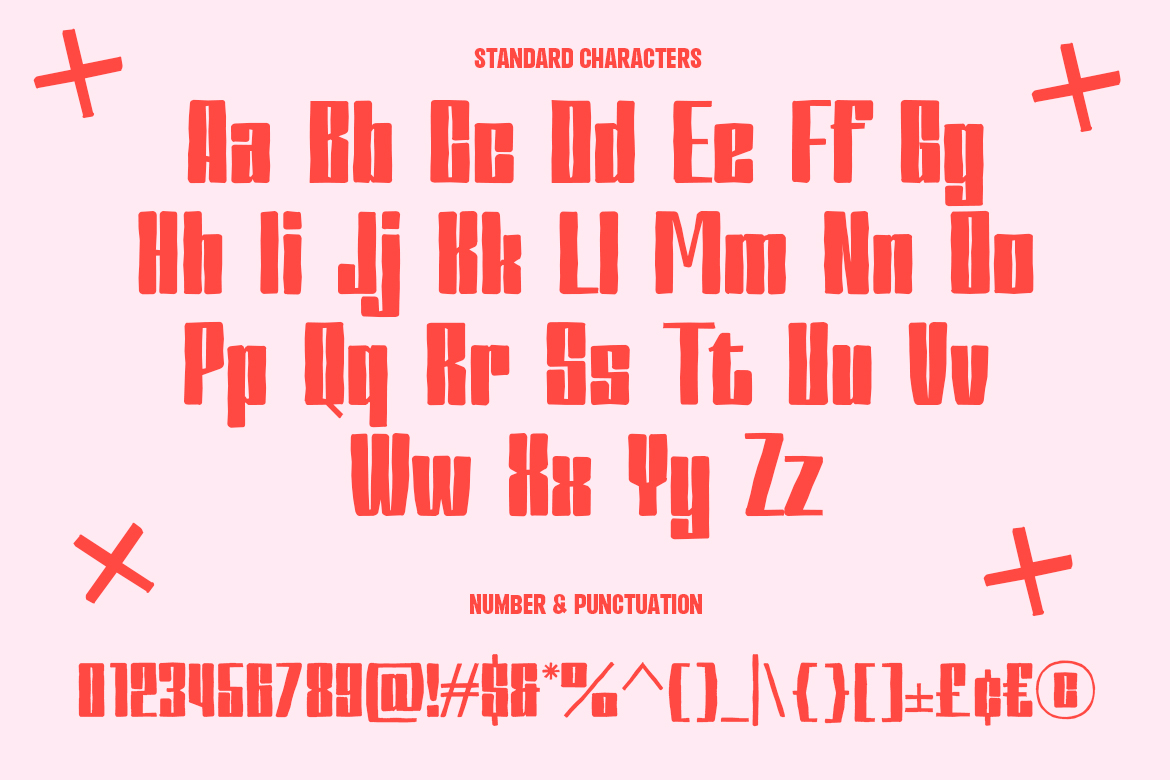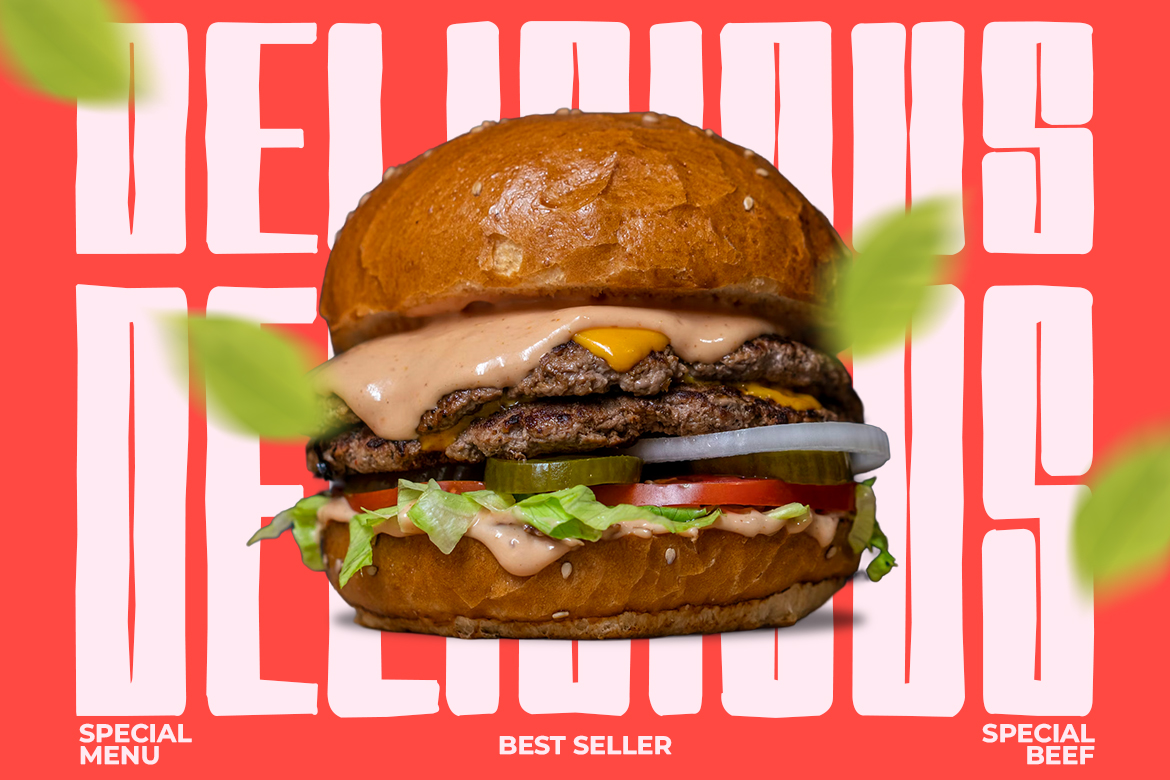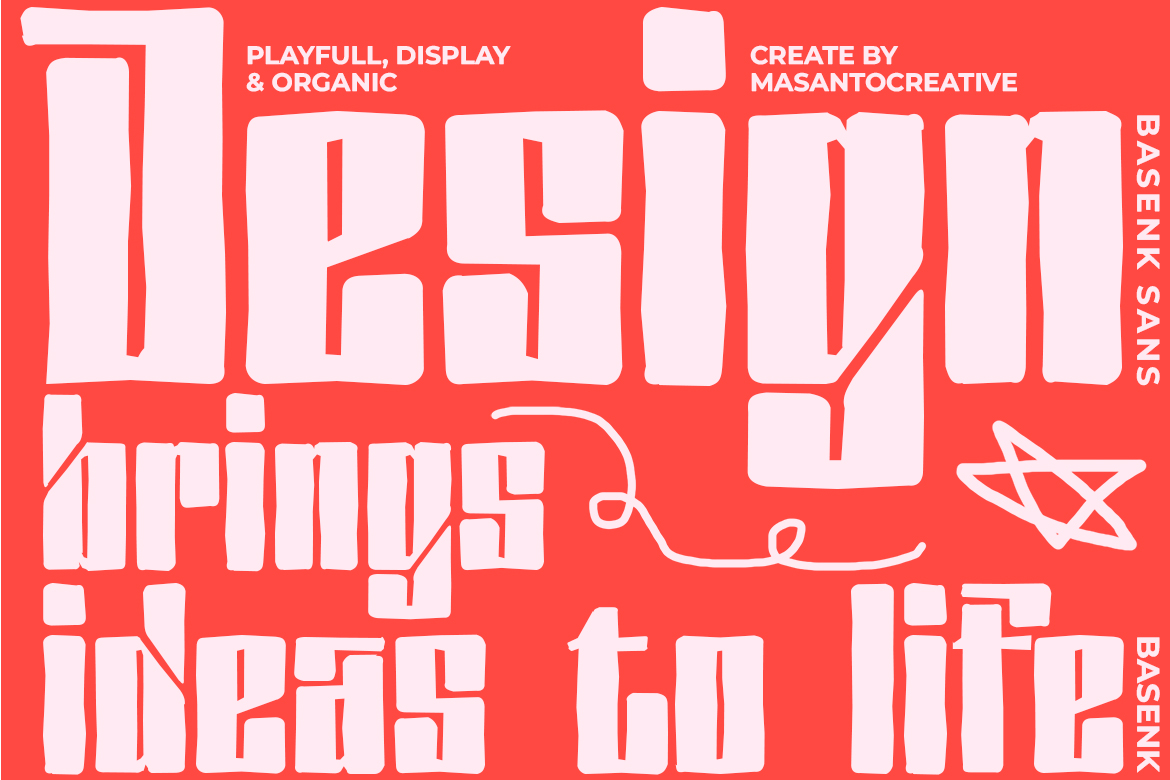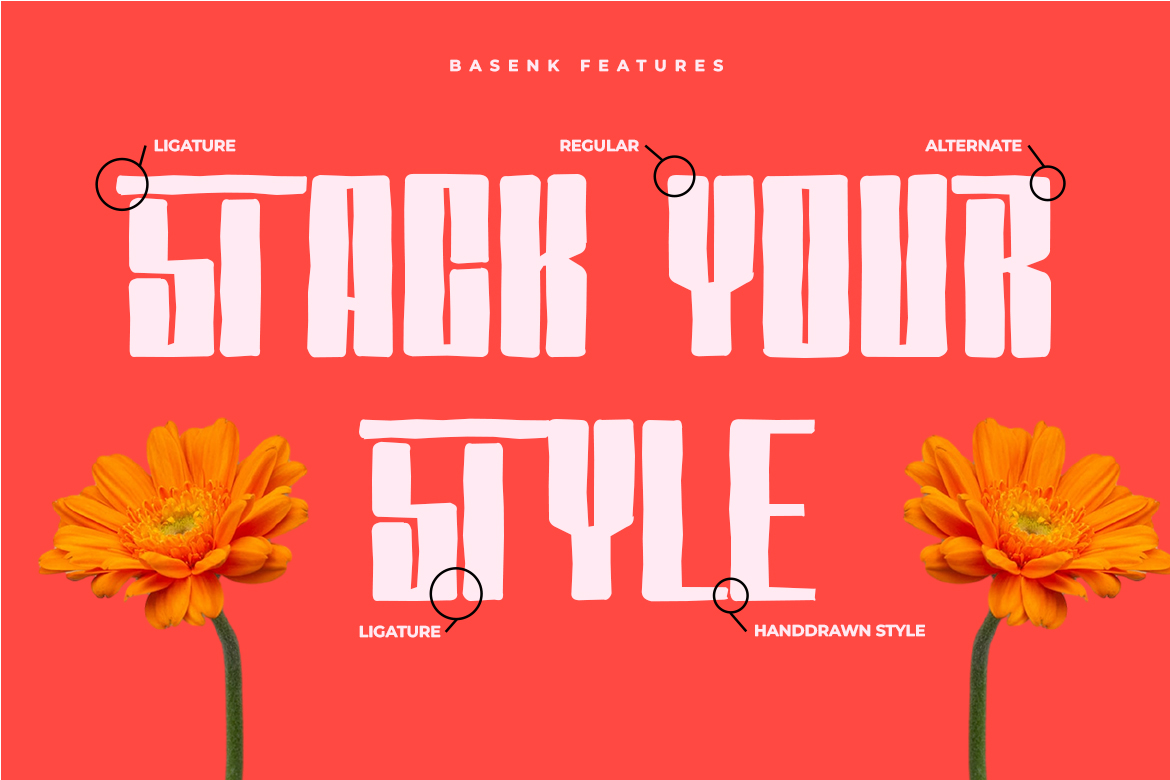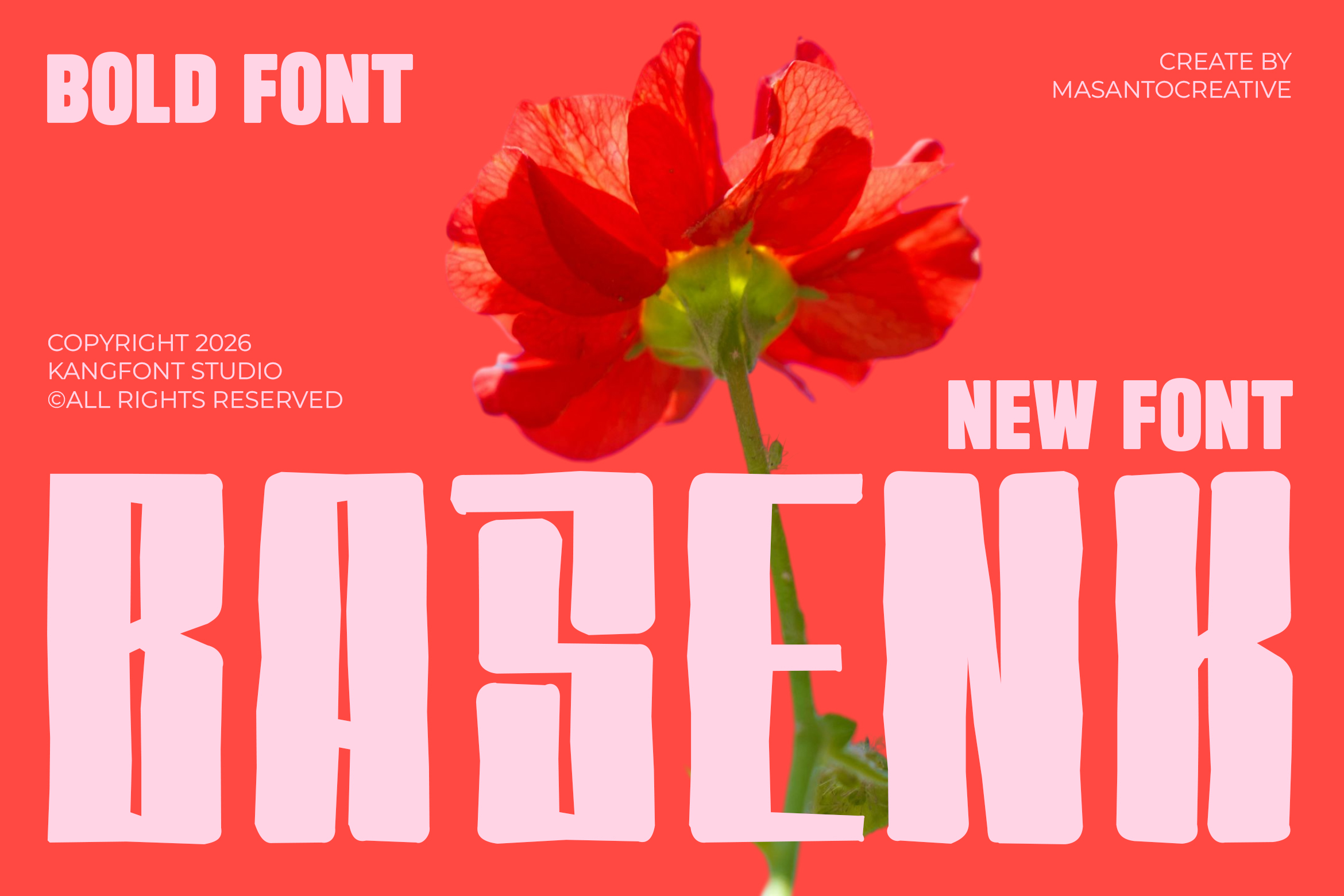
Basenk Sans Font is a bold organic display font designed to bring strong visual impact and playful character into your creative projects. This font combines a handcrafted, irregular style with a modern aesthetic, making it perfect for designers who want a unique and expressive look.
If you are searching for a bold display font, a playful font, or an organic font that stands out, Basenk Sans is a powerful choice. With its chunky shapes and imperfect edges, this font creates a natural and energetic feel that works across many design styles.
Basenk Sans is not just another display font. It is designed to deliver personality and flexibility in one package.
This font includes:
- Uppercase and lowercase letters
- Numbers and punctuation
- Ligatures for smoother letter combinations
- Stylistic alternates for creative variations
- Multilingual support
With these features, Basenk Sans allows you to experiment with typography and create more dynamic and professional designs.
As a bold display font, Basenk Sans works best in large sizes where its character can shine. It is highly suitable for:
- Branding and logo design
- Poster and headline design
- Packaging design
- Social media graphics
- T-shirt and merchandise design
- Advertising and promotional materials
If you are building a streetwear brand or creating bold visual content, this font will help your design stand out instantly.
Basenk Sans is an excellent font for branding projects that require a unique identity. Its organic and playful style makes it ideal for:
- Creative studios
- Lifestyle brands
- Food and beverage packaging
- Event promotions
The font communicates creativity, energy, and originality, helping your brand become more memorable.
Its bold and chunky form makes it highly visible on apparel, especially for urban and street-style designs. This makes it perfect for:
- Graphic t-shirts
- Streetwear branding
- Print-on-demand products
In today’s digital world, attention is everything. Basenk Sans performs extremely well in:
- Instagram posts
- YouTube thumbnails
- Online ads
- Website banners
Its strong visual presence helps capture attention quickly, making your content more engaging.
🔗 Pairing and Typography System
Basenk Sans works best as a display font, but it can also be paired with clean sans serif fonts for body text.
For example:
- Use Basenk Sans for headlines
- Combine with a minimalist font for paragraphs
This creates a balanced and professional typography system.
🌍 Multilingual Support
Basenk Sans supports multilingual characters, allowing you to use it for international projects. This makes it more flexible and suitable for global audiences.